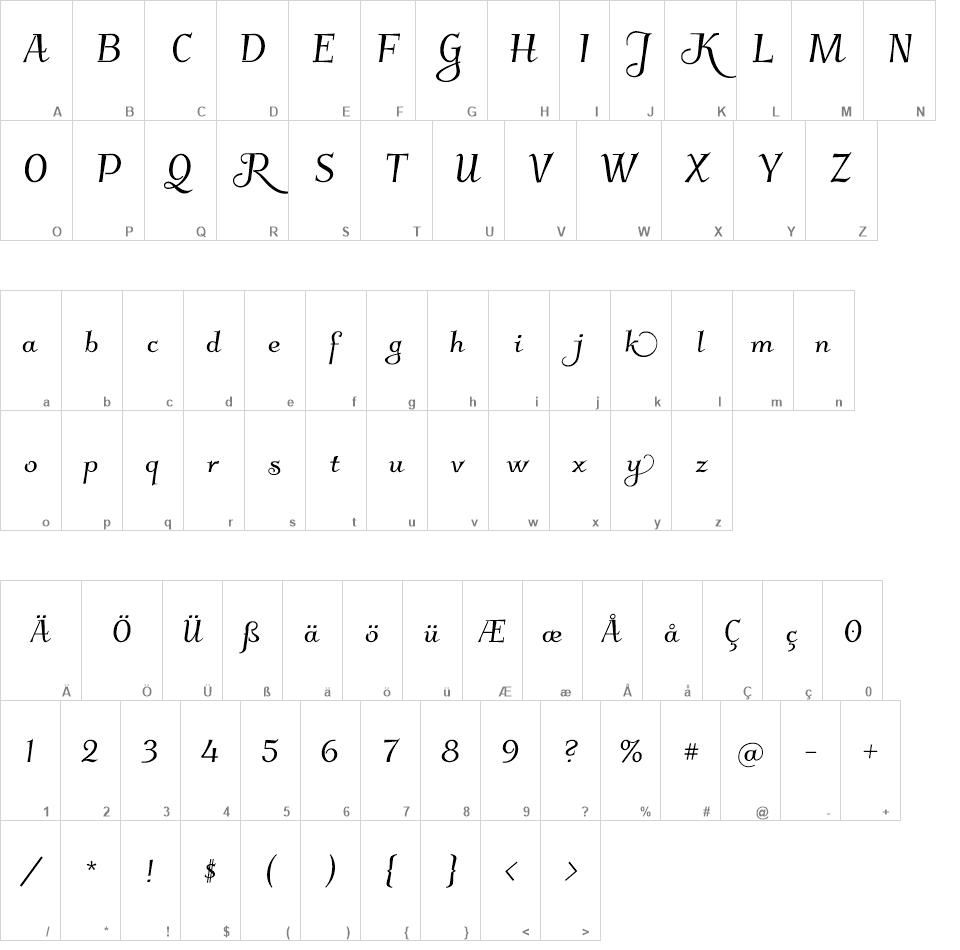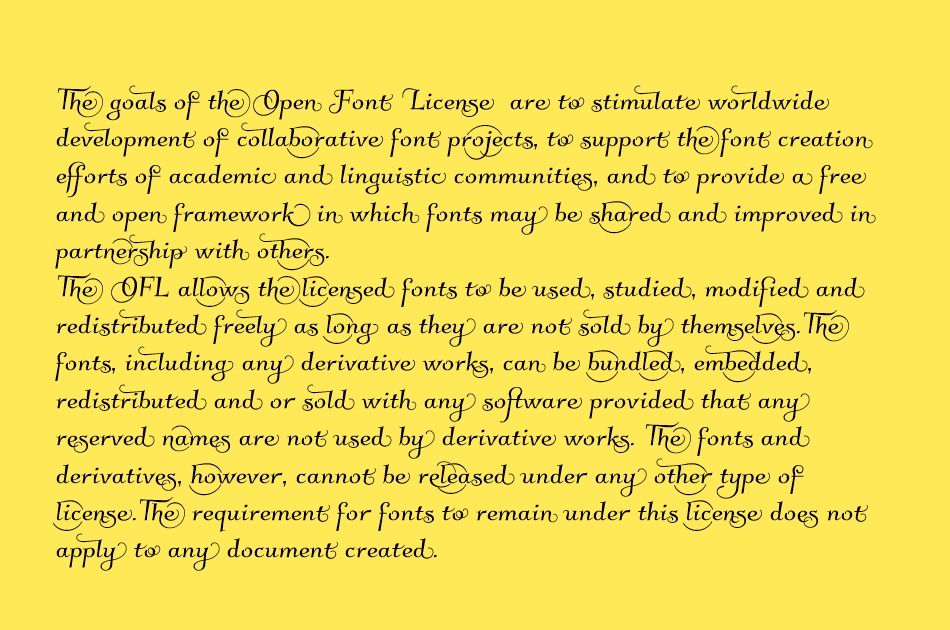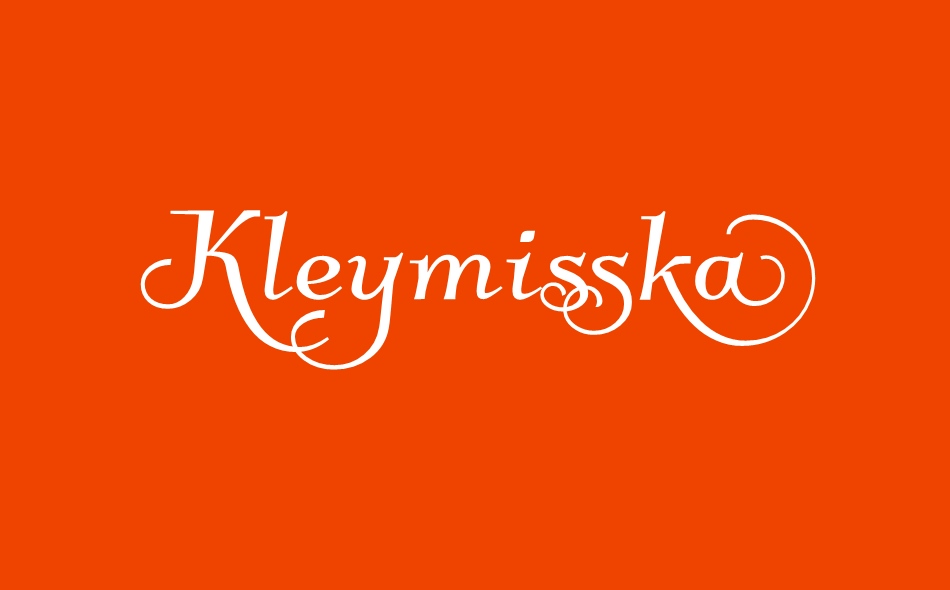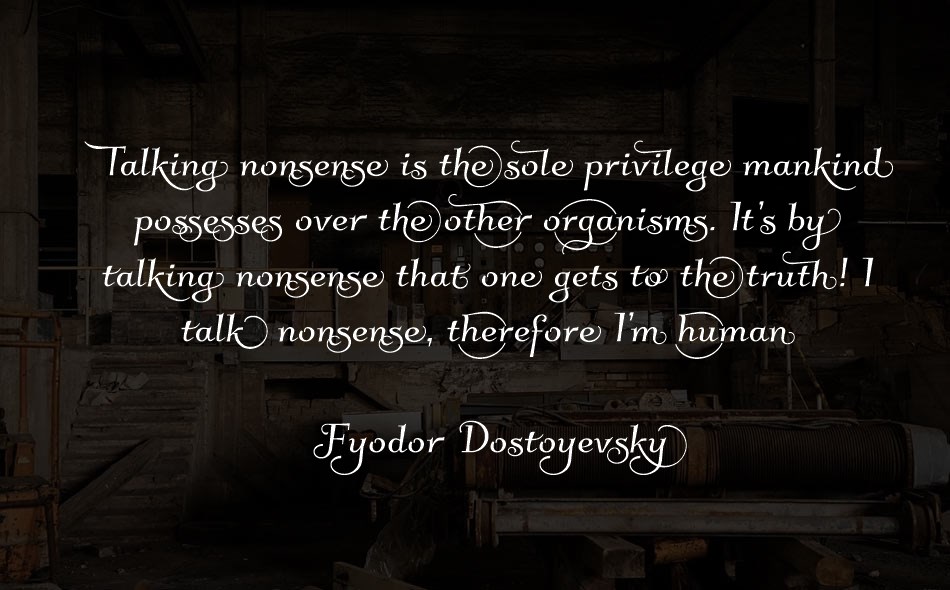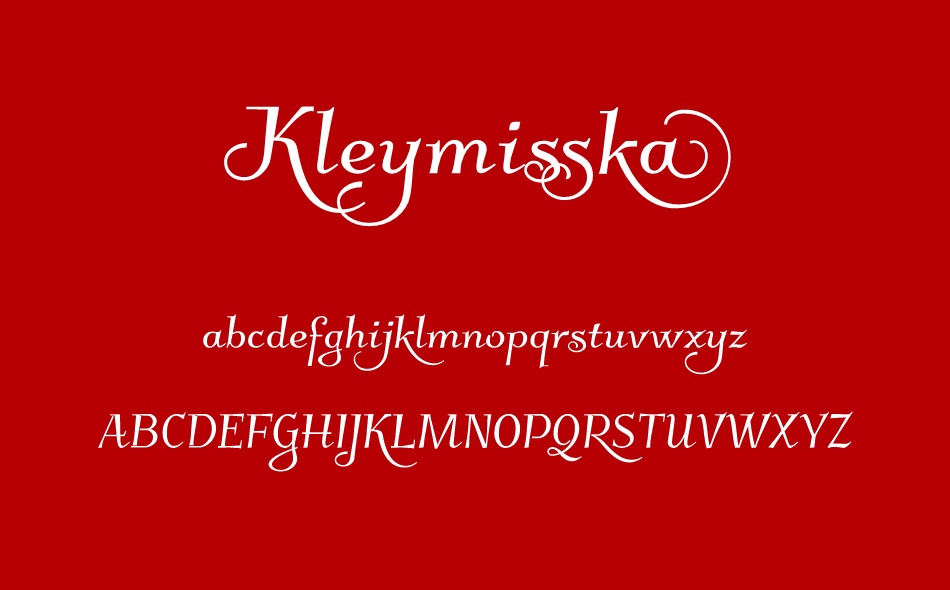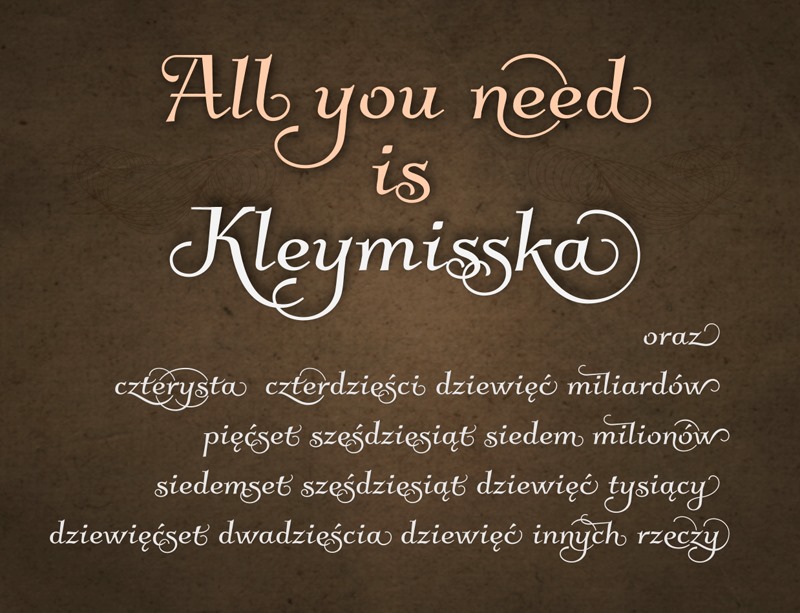
Kleymisska font
Cursive, decorative font Kleymisska with contextual Alternates, Ligatures, initial and terminal Forms (as contextual Alternates). Font is newer, bold version of font Kleymissky